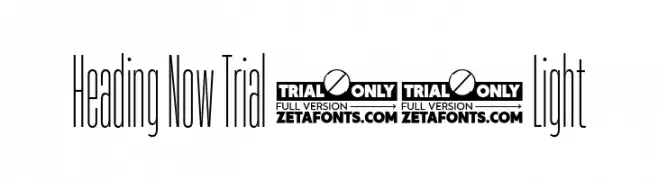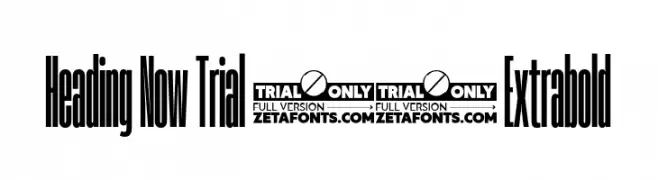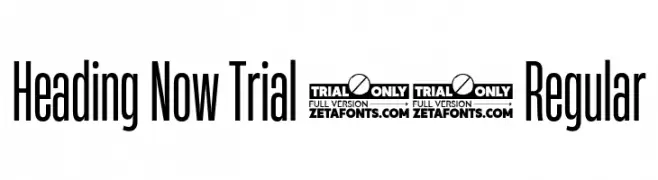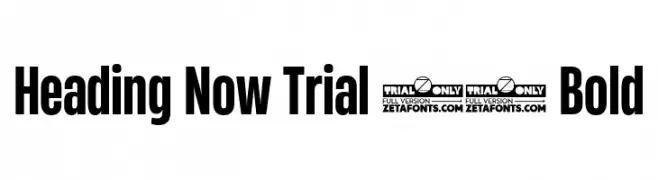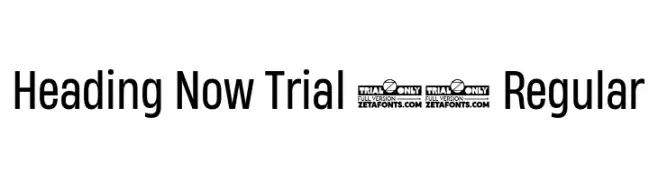
A bold, modern font with thick, uniform strokes and geometric structure.
A modern, italic sans-serif font with clean lines and a dynamic style.
A modern sans-serif font with tall, narrow letterforms and high legibility.
A bold, condensed font with a modern and impactful style.
A modern, elongated font with thin strokes and a sleek appearance.
A bold, modern font with clean lines and excellent readability.
A sleek, modern, light italic font with medium contrast and normal spacing.
A modern, thin italic font with elegant strokes and a refined appearance.
A modern, sleek font with tall, narrow characters and a clean, professional appearance.
A bold, italicized font with strong, clean lines and excellent legibility.